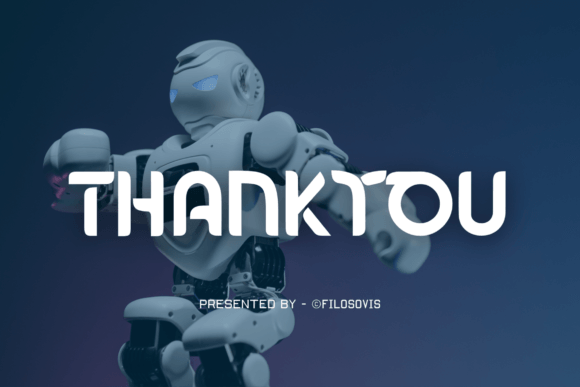
Ropocob: A Playful Robotic Font for Modern Design
In the crowded landscape of digital and print media, the choice of typography often dictates whether a message is ignored or embraced. While many designers gravitate toward safe, standard typefaces to ensure legibility, there is a growing need for fonts that inject personality without sacrificing structure. Ropocob emerges as a compelling solution for this specific challenge. It is a fun and robotic modern custom font that adds a playful twist to any design. With its whimsical letterforms and unique charm, it bridges the gap between rigid technological aesthetics and organic human creativity. For professionals looking to infuse their creations with joy and personality, Ropocob offers a distinct visual language that stands out in headlines, vibrant posters, and playful branding projects.
The Intersection of Technology and Whimsy
Typography has long been categorized into distinct genres: the serious and structural, or the casual and hand-drawn. Ropocob challenges this binary by fusing the two. The "robotic" aspect of the font provides a sense of order, precision, and modernity, which appeals to audiences accustomed to sleek tech interfaces. However, the "fun" element introduces irregularities and curves that soften the mechanical feel. This duality makes it particularly effective for brands that want to appear innovative yet approachable.
When a designer selects Ropocob, they are not just choosing a set of characters; they are selecting a tone of voice. The font suggests that a brand or project is forward-thinking but not cold. It implies that while the underlying technology or process might be complex, the user experience will be delightful. This nuance is critical in today's market, where consumers, especially those aged 20 to 50, value authenticity and emotional connection over sterile corporate messaging.
Enhancing Visual Hierarchy in Headlines
One of the most practical applications for Ropocob is in headline design. In web layouts, blog posts, and presentation slides, the headline is the primary hook. Standard sans-serif fonts often blend into the background, requiring readers to work harder to engage with the content. Ropocob, with its unique charm, naturally draws the eye. Its whimsical letterforms create an immediate focal point, guiding the reader's attention exactly where it needs to go.
Consider a tech startup launching a new app aimed at simplifying daily life. A generic headline might read "New App Launches Today." Using Ropocob transforms this into a visual event. The robotic elements signal the product's nature, while the playful twist suggests ease of use. This combination can significantly increase click-through rates and engagement because the visual cue promises a positive experience before the user even reads the text. For marketers and content creators, this means less reliance on flashy graphics and more trust in the power of strong, character-driven typography.
Branding Strategies for Creative Entrepreneurs
Small business owners and entrepreneurs often struggle to differentiate their brand identity from larger competitors. Budget constraints frequently limit access to custom logo design, making the choice of a pre-existing font a strategic decision. Ropocob serves as an excellent foundation for logos and brand marks that need to convey energy and innovation. Its versatility allows it to function well in both large-scale signage and small digital avatars.
The font is particularly well-suited for industries such as ed-tech, gaming, children's education, and creative agencies. These sectors benefit from a visual identity that feels dynamic and alive. For instance, an educator creating course materials for adults returning to school might find that traditional academic fonts feel too intimidating. Ropocob can make the learning journey feel like an adventure, reducing anxiety and increasing motivation among students. Similarly, a freelance graphic designer using Ropocob in their portfolio can signal to potential clients that they are willing to take creative risks and explore unconventional paths.
Creating Vibrant Posters and Marketing Collateral
Print and digital posters require high-impact visuals to stop the scroll or catch the passerby's eye. Ropocob excels in these environments due to its boldness and distinctiveness. When used for event promotions, product launches, or community announcements, the font ensures that the key information is not only seen but remembered.
The whimsical nature of the letterforms allows for creative manipulation. Designers can stretch, condense, or color-block individual letters to create a cohesive composition that feels energetic. This flexibility saves time during the design process, as the font itself carries much of the stylistic weight. Instead of spending hours adding decorative elements to a plain text block, a designer can rely on the inherent character of Ropocob to deliver the desired aesthetic. This efficiency is invaluable for bloggers and social media managers who need to produce high-quality content consistently.
Navigating Limitations and Best Practices
While Ropocob offers significant advantages, it is essential to understand its limitations to use it effectively. Like any display font, it is best suited for short bursts of text rather than long paragraphs. The intricate details and playful shapes that make it eye-catching in headlines can become distracting or difficult to read in body copy. Overuse can lead to visual fatigue, diminishing the impact of the design.
To maximize results, pair Ropocob with a clean, neutral sans-serif or serif font for the main body text. This contrast creates a balanced layout where the headline pops without compromising readability. For example, in a landing page, use Ropocob for the hero title and call-to-action buttons, but switch to a simple font for the feature descriptions and testimonials. This approach ensures that the playful twist enhances the communication rather than hindering it.
Conclusion on Typography Choices
Selecting the right font is about more than just aesthetics; it is about communicating the right emotion and facilitating clear understanding. Ropocob stands out as a versatile option for those seeking to blend modernity with playfulness. It empowers creators to craft designs that are not only visually striking but also emotionally resonant. From eye-catching headlines to vibrant posters and playful branding projects, this custom font offers a practical way to elevate visual communication. By integrating Ropocob into your design toolkit, you can infuse your creations with joy and personality, ensuring your message captures attention and leaves a lasting impression.